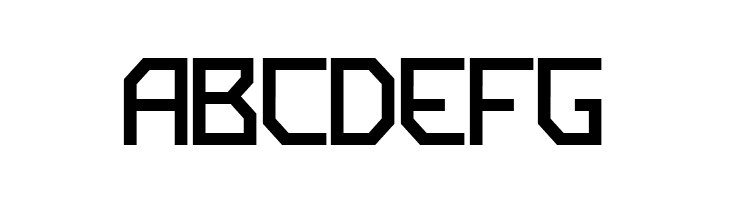
Concielian Jet Condensed Font
- Font: Concielian Jet Condensed
- Weight: Condensed
A geometric, blocky font with uniform line thickness and a digital aesthetic.